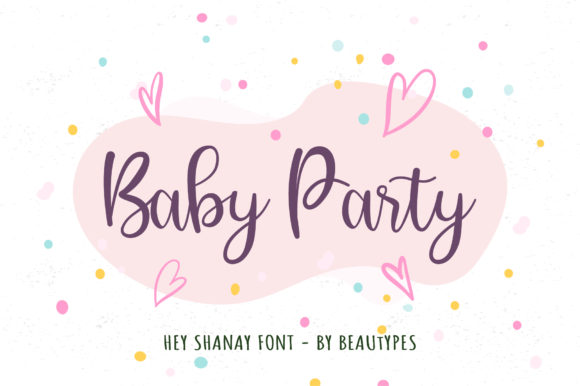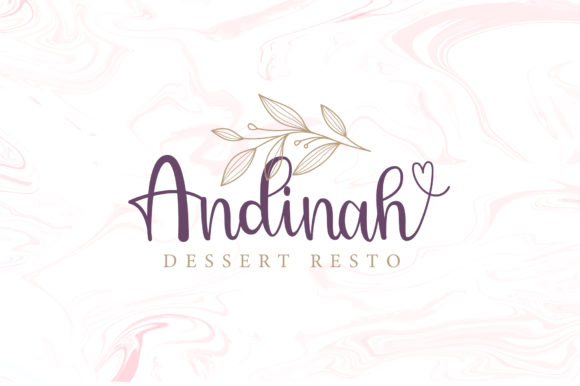
Hey Shanay Font
db-ku.com - Script & Handwritten -- Hey Shanay is a modern handwritten font with special heart alternates characters. Use it to create gorgeous wedding invitations, beautiful stationary art, and cute greeting cards.